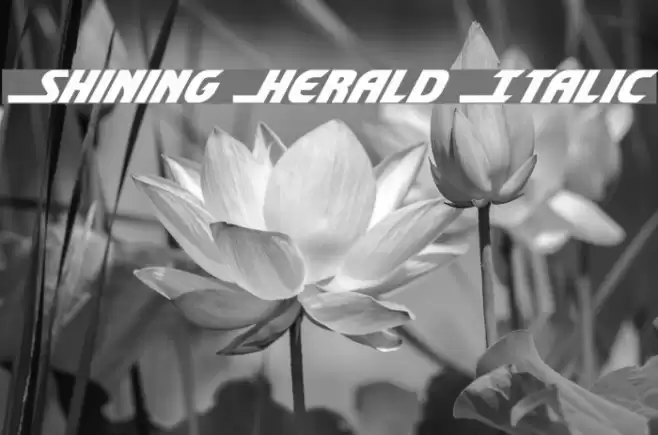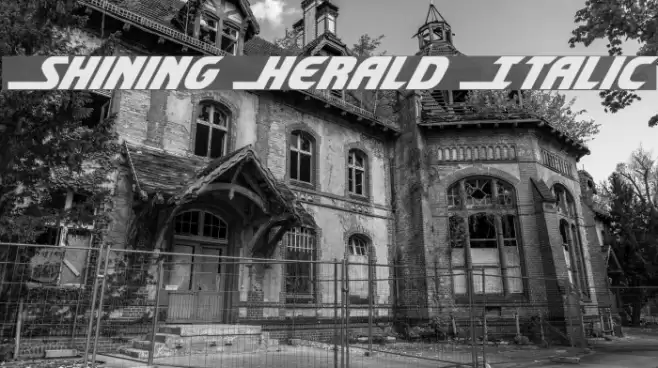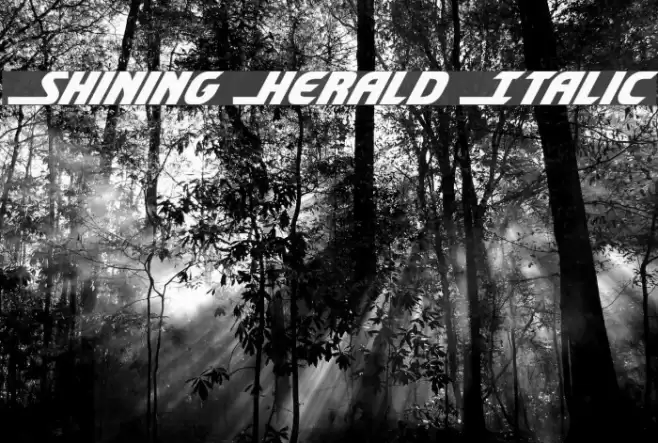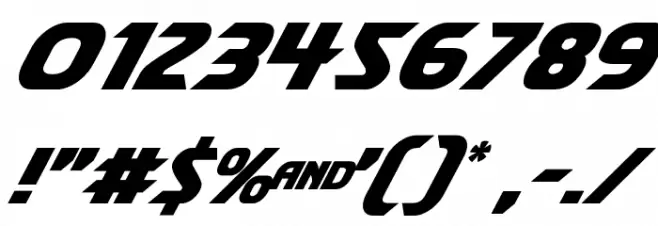
Shining Herald Italic Font
Shining Herald Italic Description
This font features a bold and dynamic style with a strong italic slant, giving it a sense of motion and energy. The characters are wide and robust, with a consistent stroke width that enhances readability while maintaining a modern aesthetic. The uppercase and lowercase letters are designed with sharp angles and clean lines, contributing to a futuristic and sleek appearance. The numerals and special characters follow the same design principles, ensuring uniformity across all glyphs. This font is ideal for projects that require a bold statement and a contemporary look.
A bold, italic font with a modern and dynamic style from Uncategorized fonts.
- Proposed Projects: Ideal for branding, sports team logos, automotive designs, and dynamic advertising campaigns.
- Width: Expanded
- Use Case: Logos, Headlines, Advertising